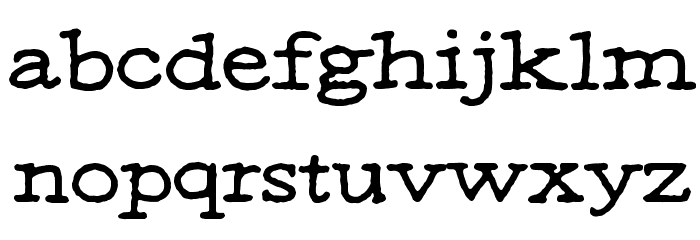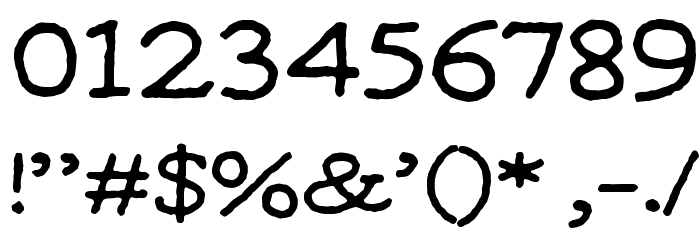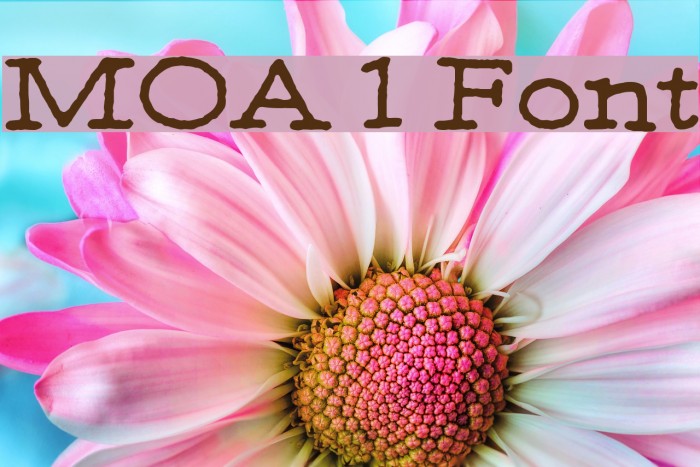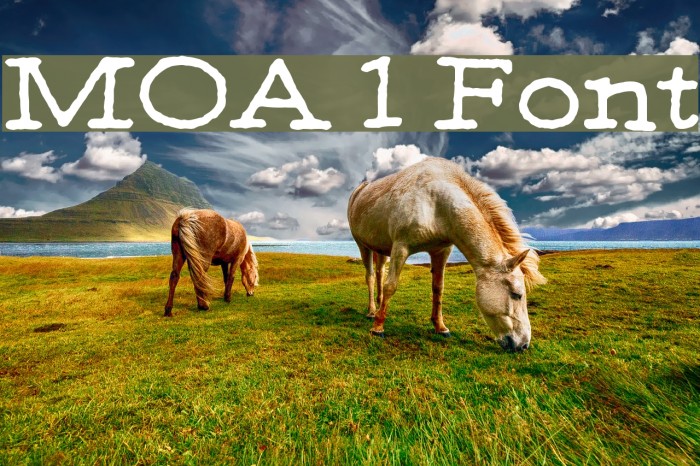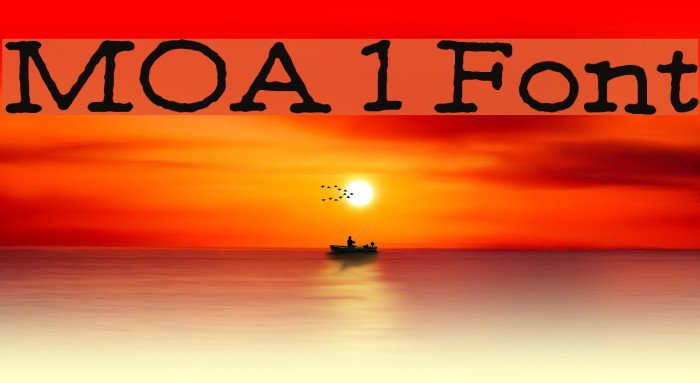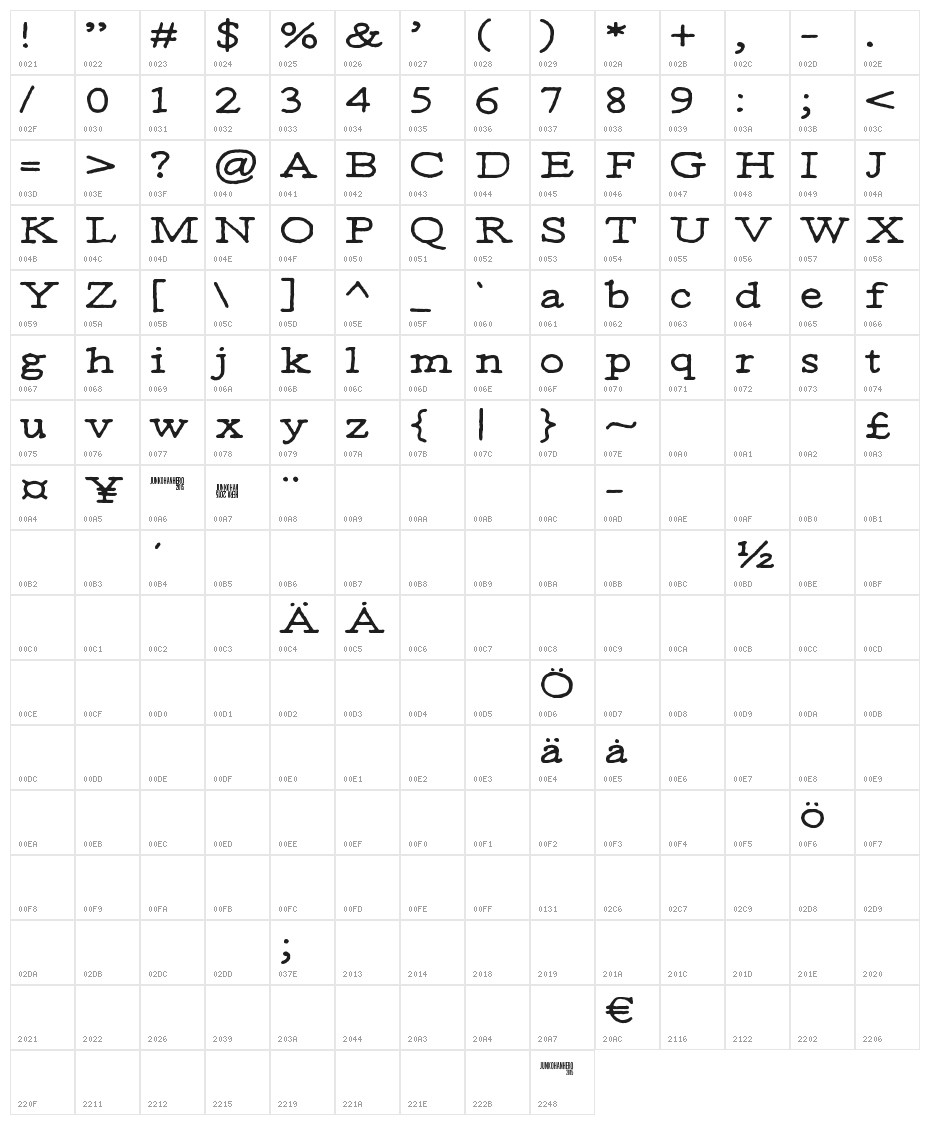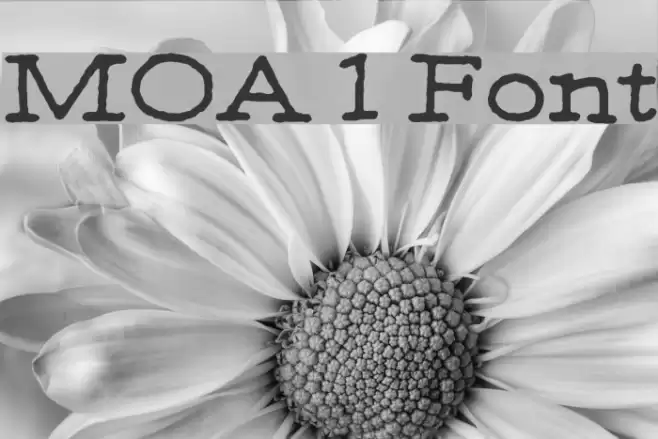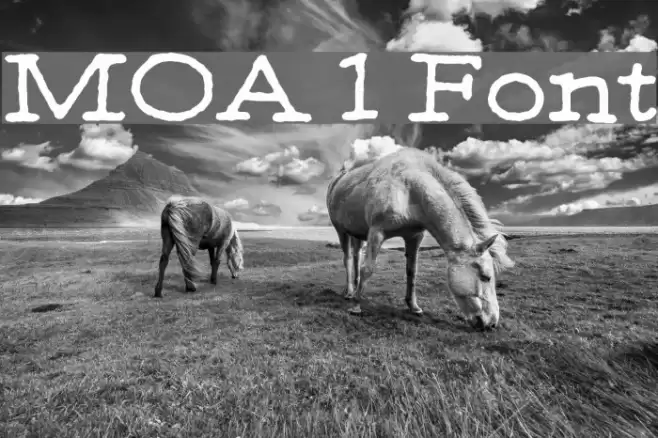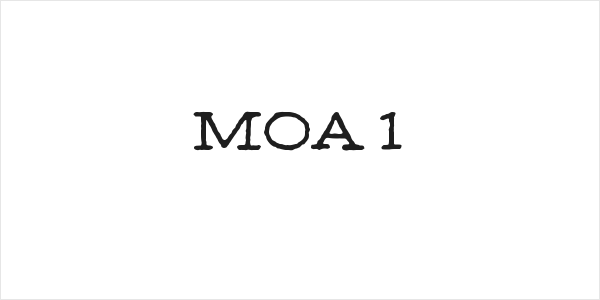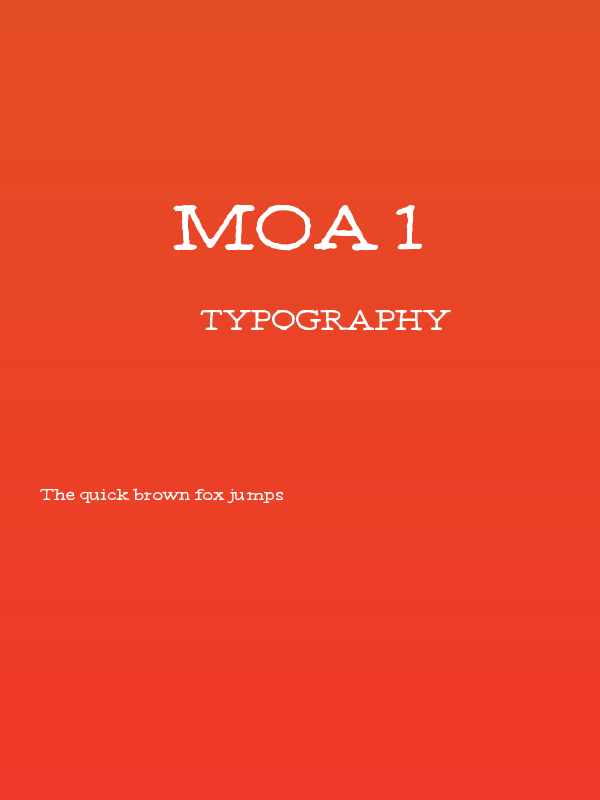
MOA 1 Font
This font features a classic typewriter style with a slightly distressed and uneven texture, giving it a vintage and authentic feel. The uppercase and lowercase letters are well-proportioned, with a consistent baseline and x-height. The numerals and special characters maintain the same rugged aesthetic, providing a cohesive look across all glyphs. The font's irregularities add character and charm, making it ideal for projects that aim to evoke a sense of nostalgia or authenticity.
A vintage typewriter-style font with a distressed, authentic texture.
- Proposed Projects: Ideal for retro-themed designs, vintage posters, typewriter-inspired projects, and branding that requires a nostalgic touch.
- Overall Style: Vintage